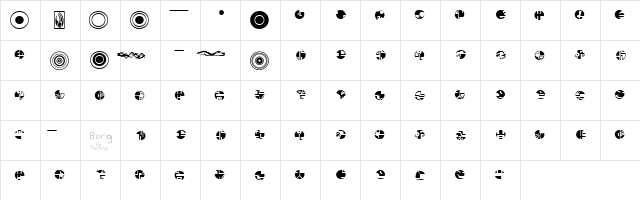
Borg Normal
Borg Normal Font Preview
Borg Normal
Design Context for Borg Typeface
Borg is a composed and adaptable typeface that performs quietly and consistently across a wide range of design contexts.